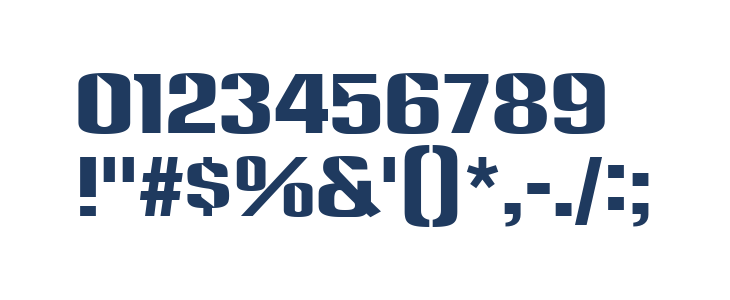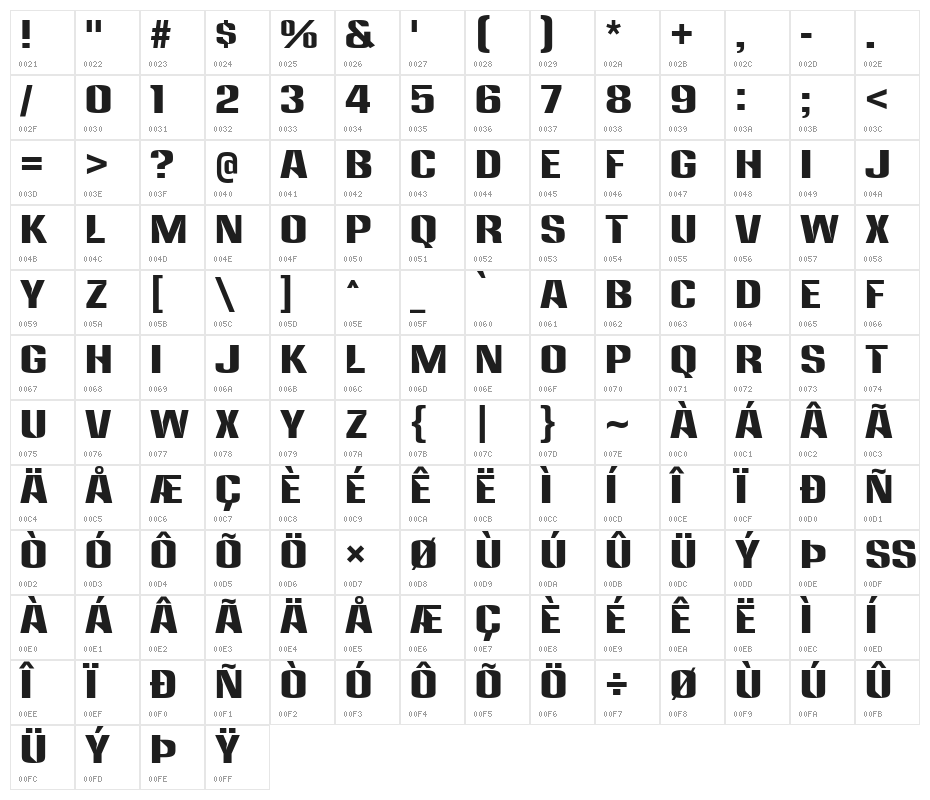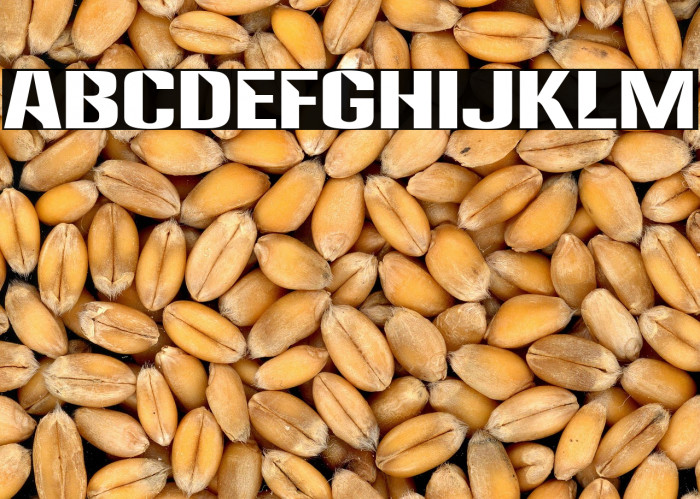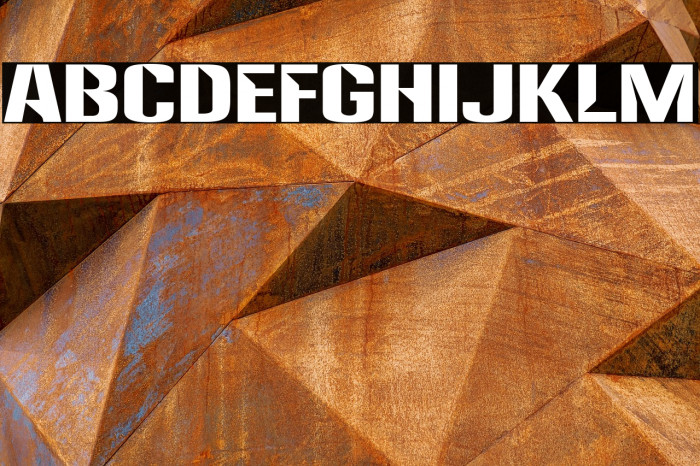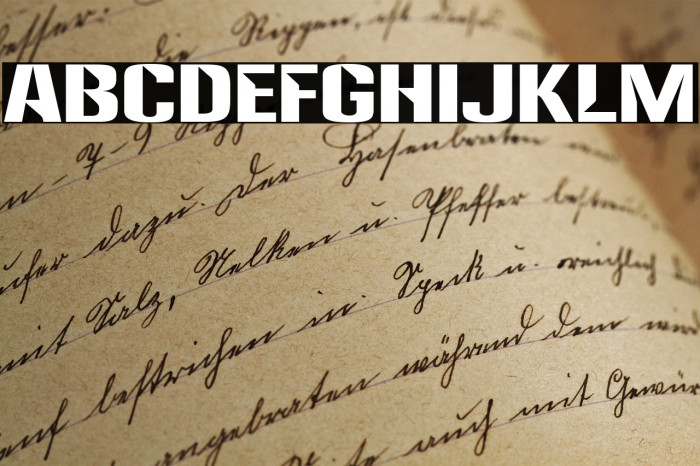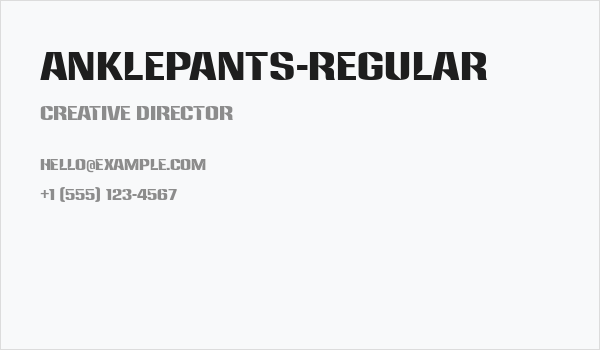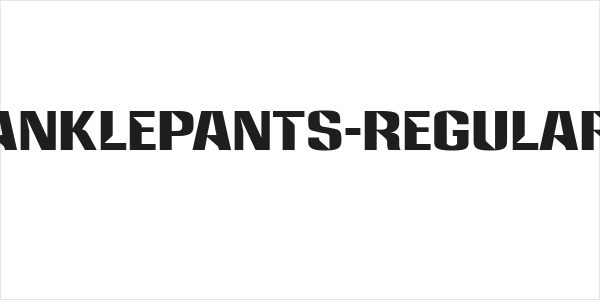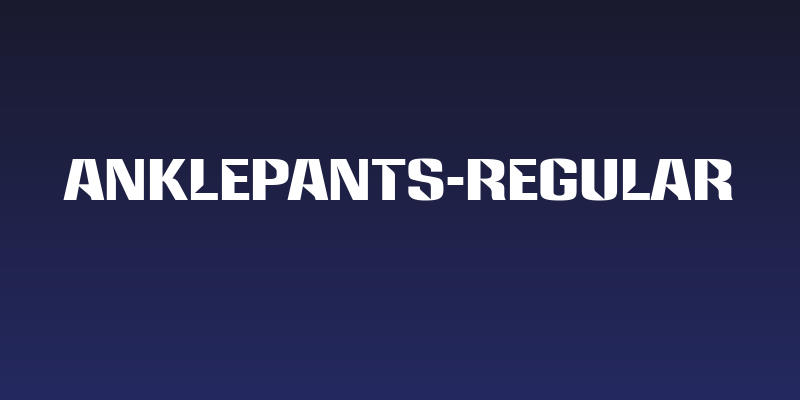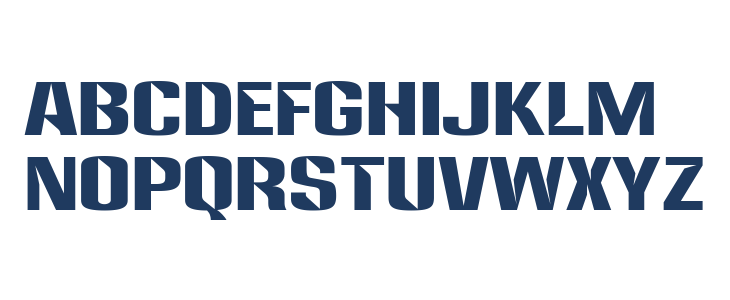
Anklepants-Regular Font
Anklepants-Regular Description
This font features a bold and striking design with a strong presence. The characters are crafted with a geometric and angular style, giving it a modern and edgy appearance. The uppercase letters are particularly bold, with sharp edges and a uniform height that creates a cohesive look. The lowercase letters maintain the same boldness, ensuring consistency across the font. The numerals are equally robust, designed to stand out with their thick strokes. Special characters are included, matching the bold and angular style of the alphabet. This font is ideal for making a statement, with its high impact and attention-grabbing design.